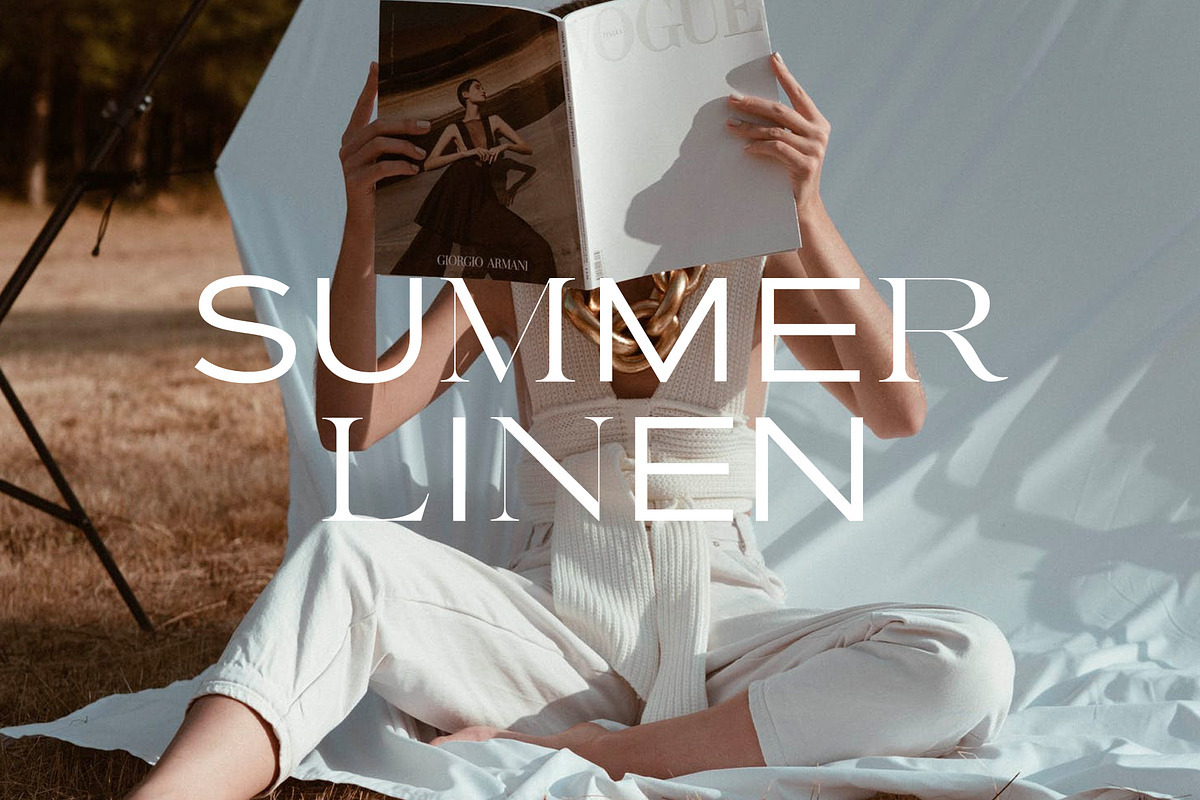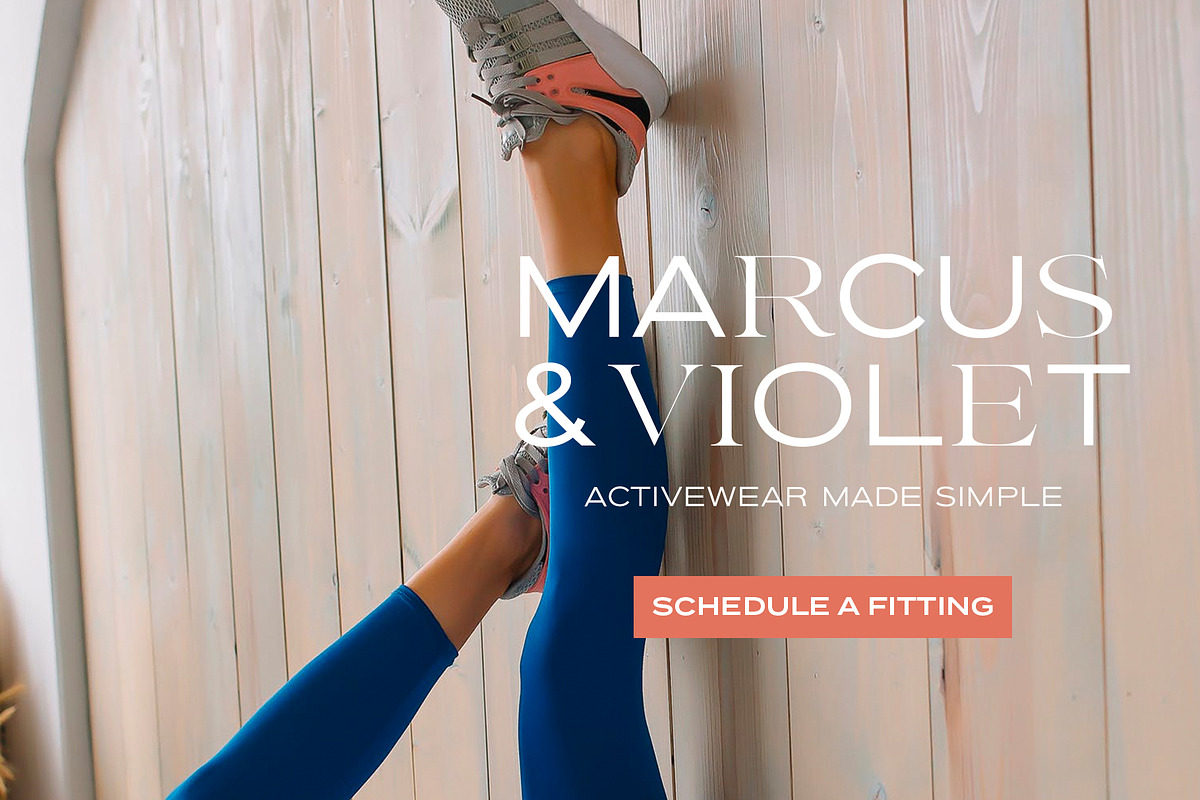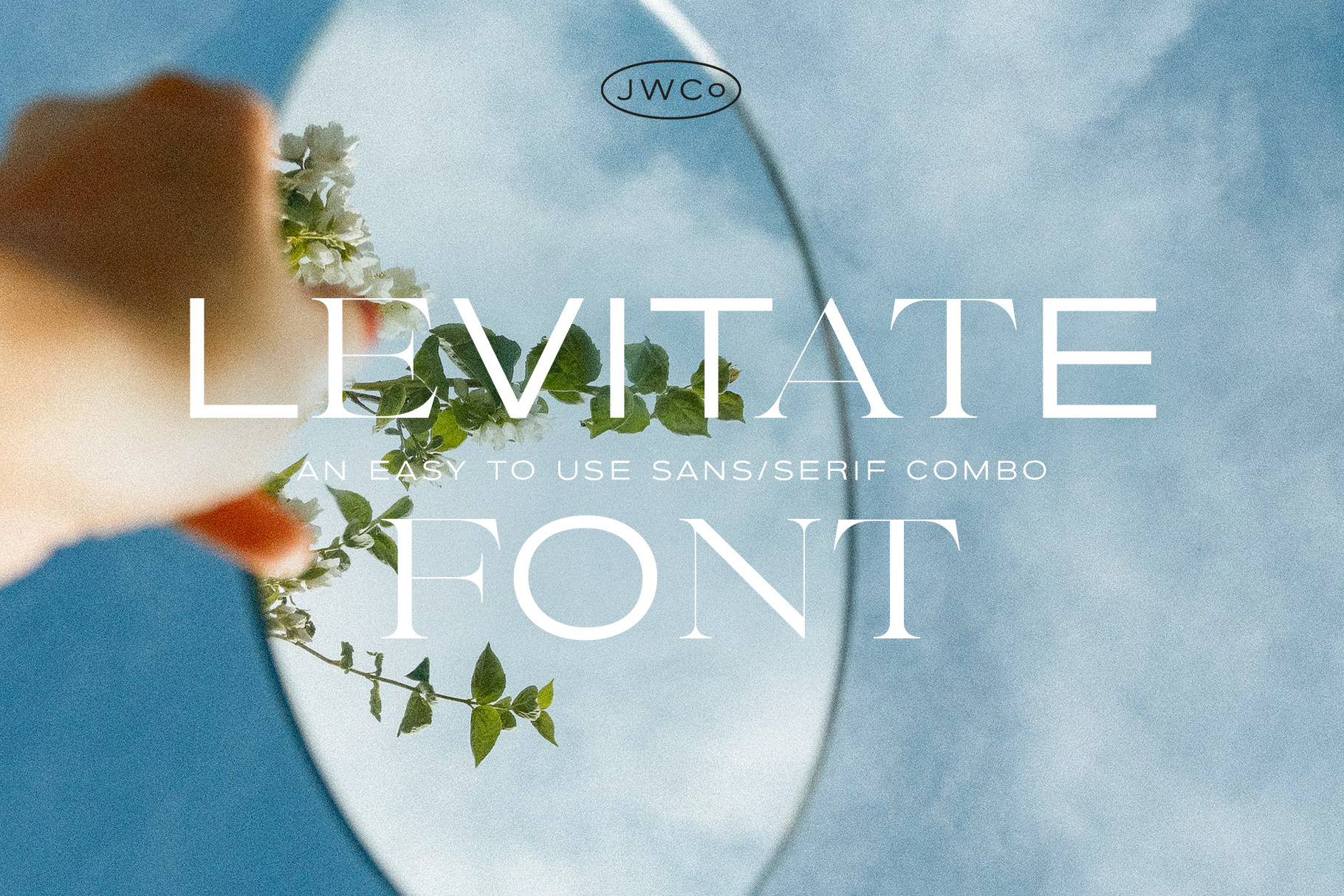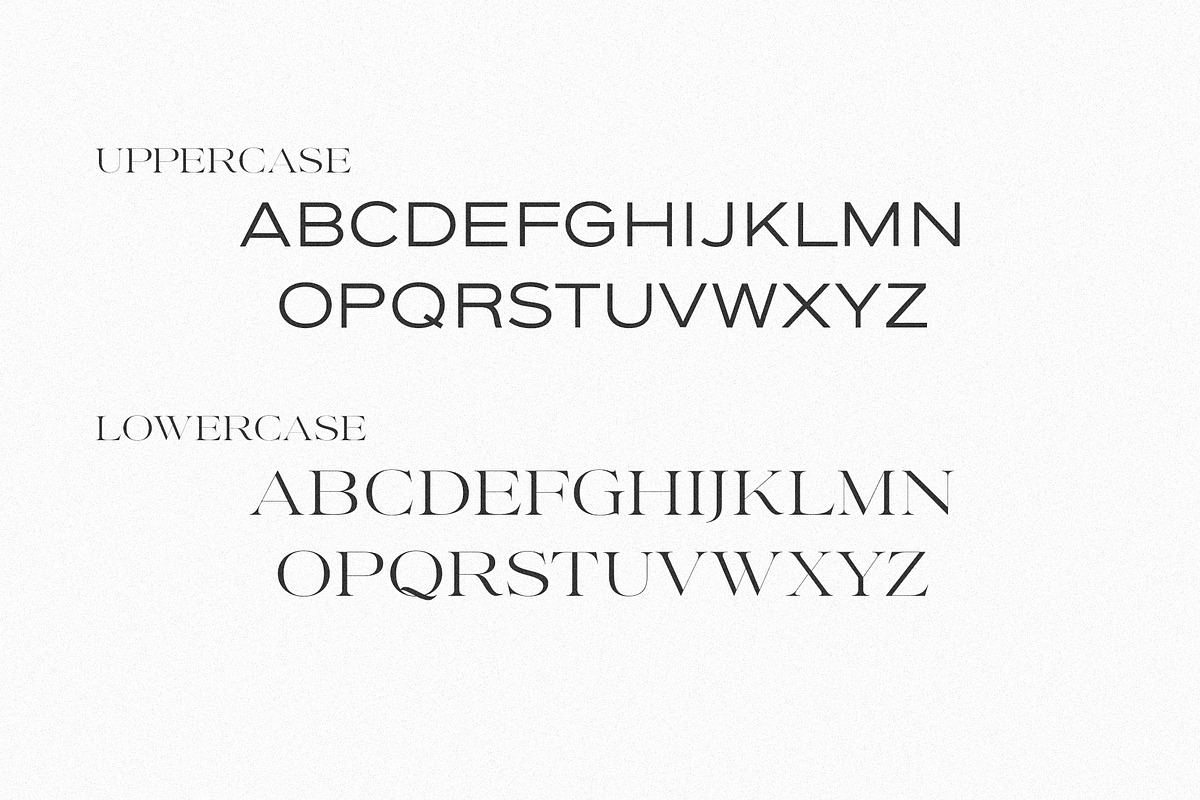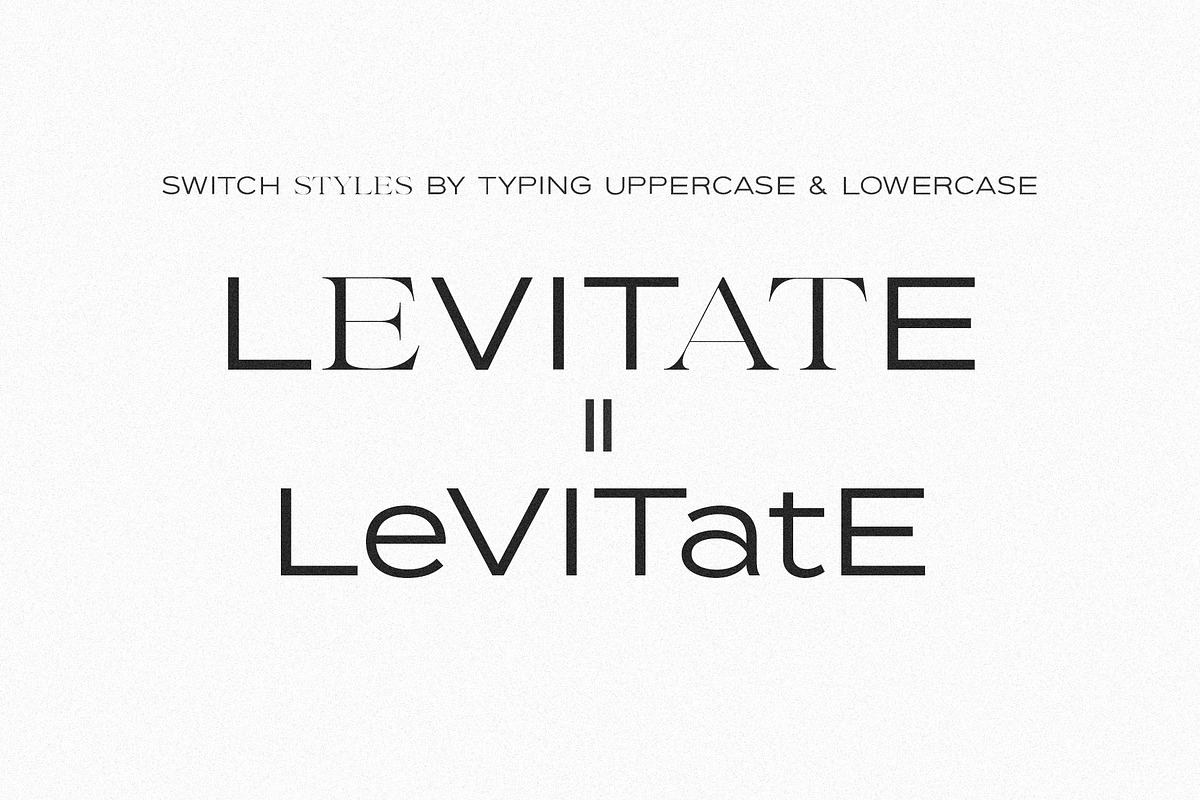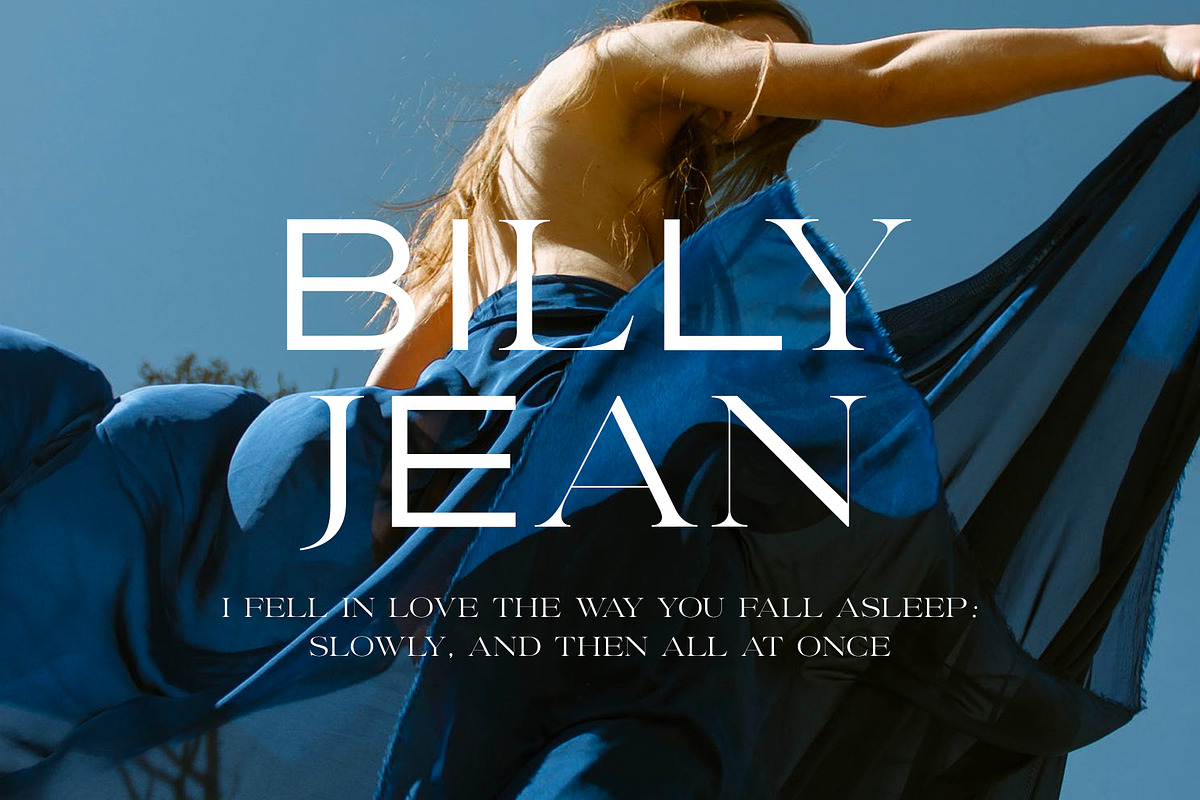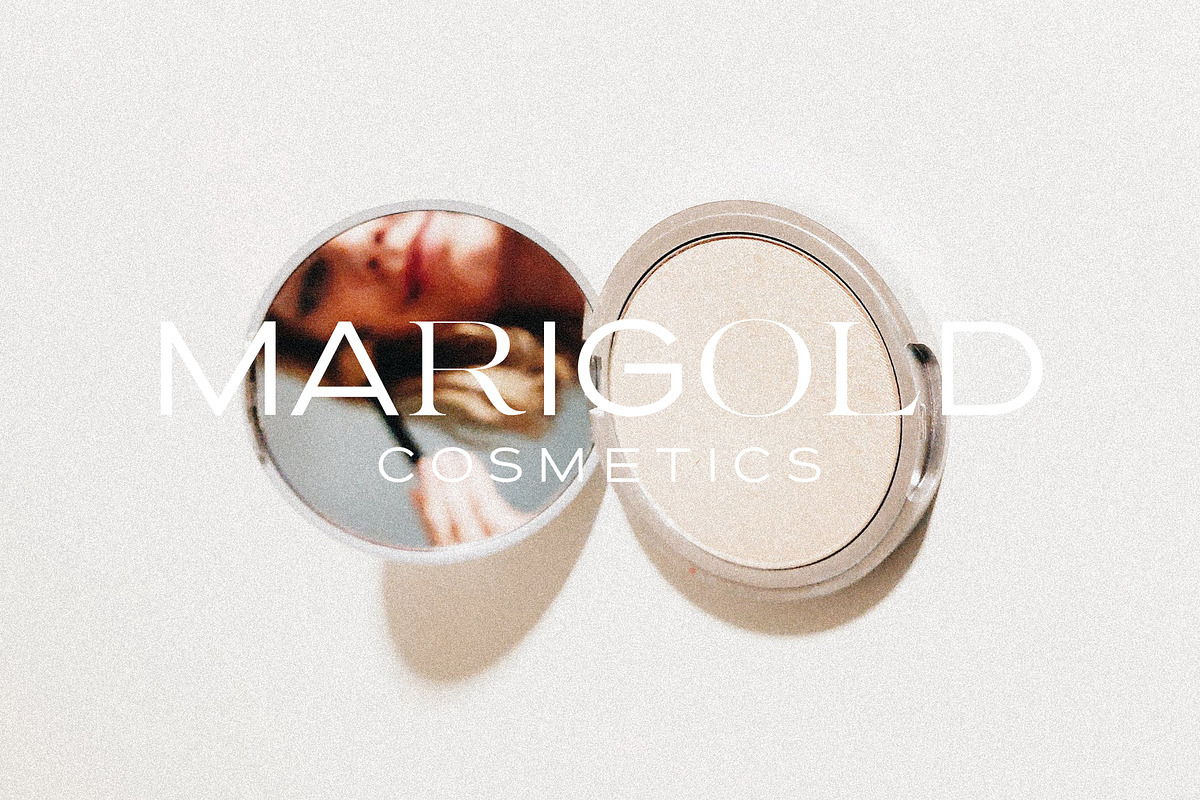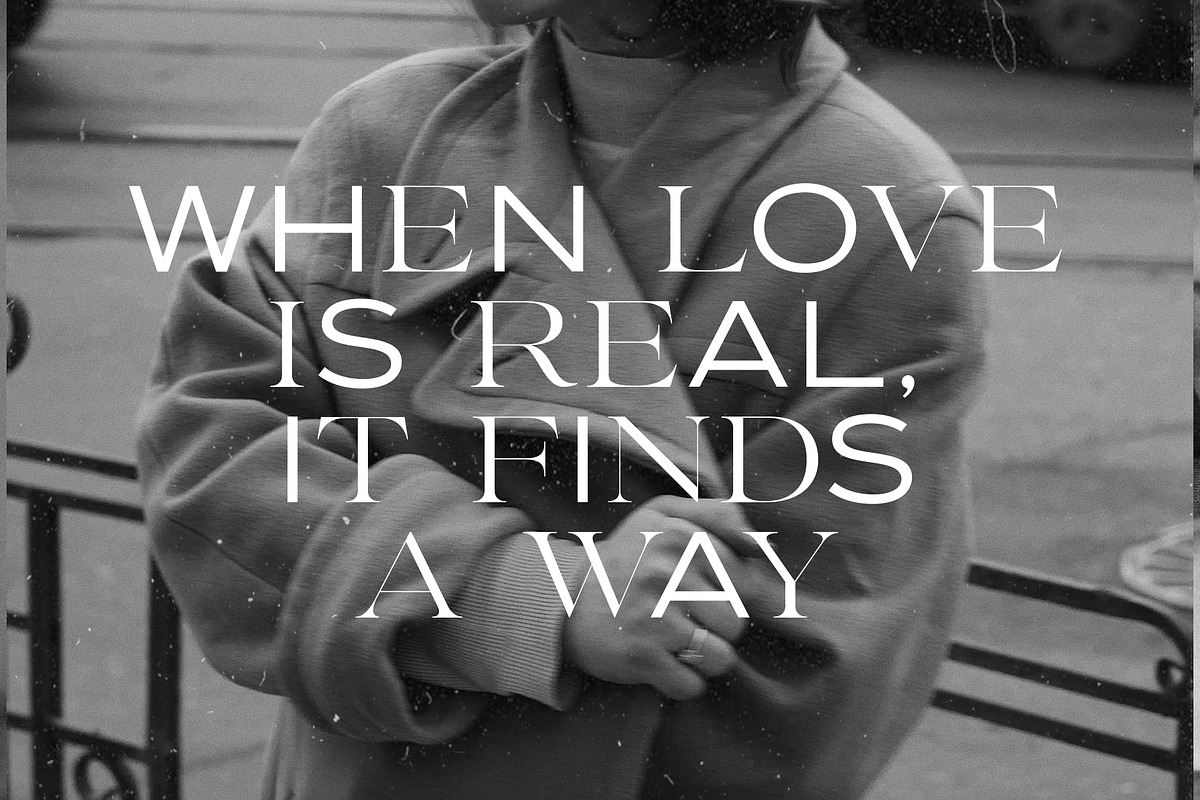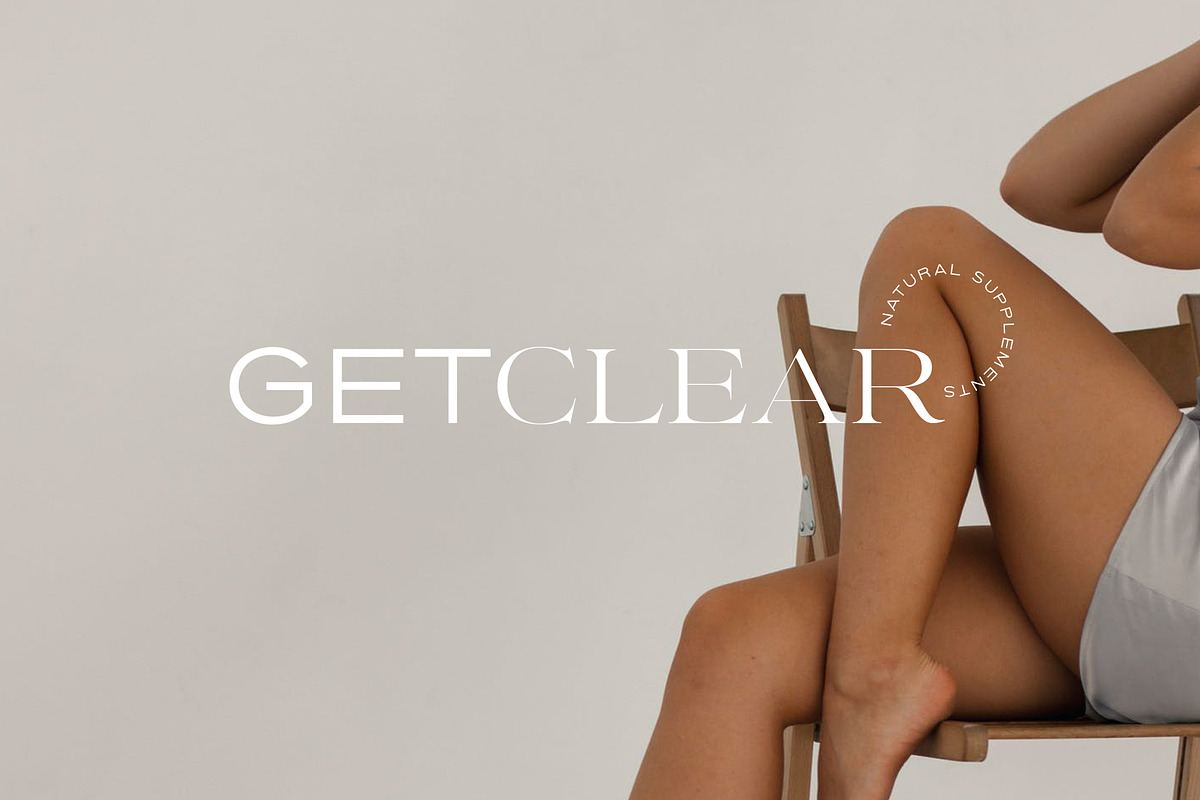
Levitate | Modern Font Combo
- Effortlessly create stunning logos and quotes
- Customize your work with both Sans and Serif styles
- Alternate between styles by using uppercase (sans) or lowercase (serif) so you don't have to switch back and forth between fonts
With the right fonts in your toolbox, everything just falls together.
Levitate was created with both graphic designers and Canva Users in mind, designed to create this unique mixed-type style without having to tediously switch back and forth between fonts.
Simply switch from uppercase to lowercase to change fonts!
Favorite pairings:
Recommended uses:
- Logos
- Headings
- Quotes
When to switch:
- I like to keep it as random as possible, so I tend to avoid alternating between sans and serif on every letter and aim for a more random mix. If a word starts with the sans, I'll make the next word start with a serif. If the previous word has a lot of sans letters, I'll switch it up on the next one with more serifs. I also try to avoid doubling up letters, so if a word has a double letter like "tt", I'll switch the fonts for those.
Note: All punctuation except an alternate for the ampersand is going to be the sans serif.